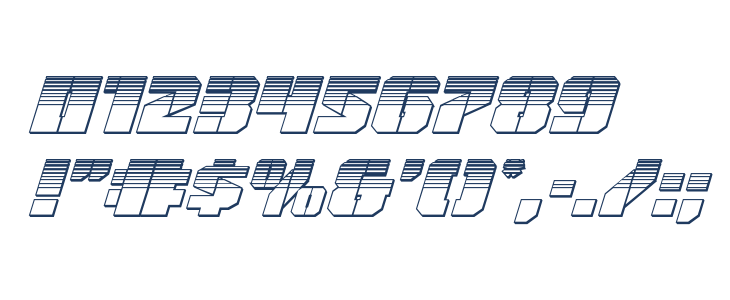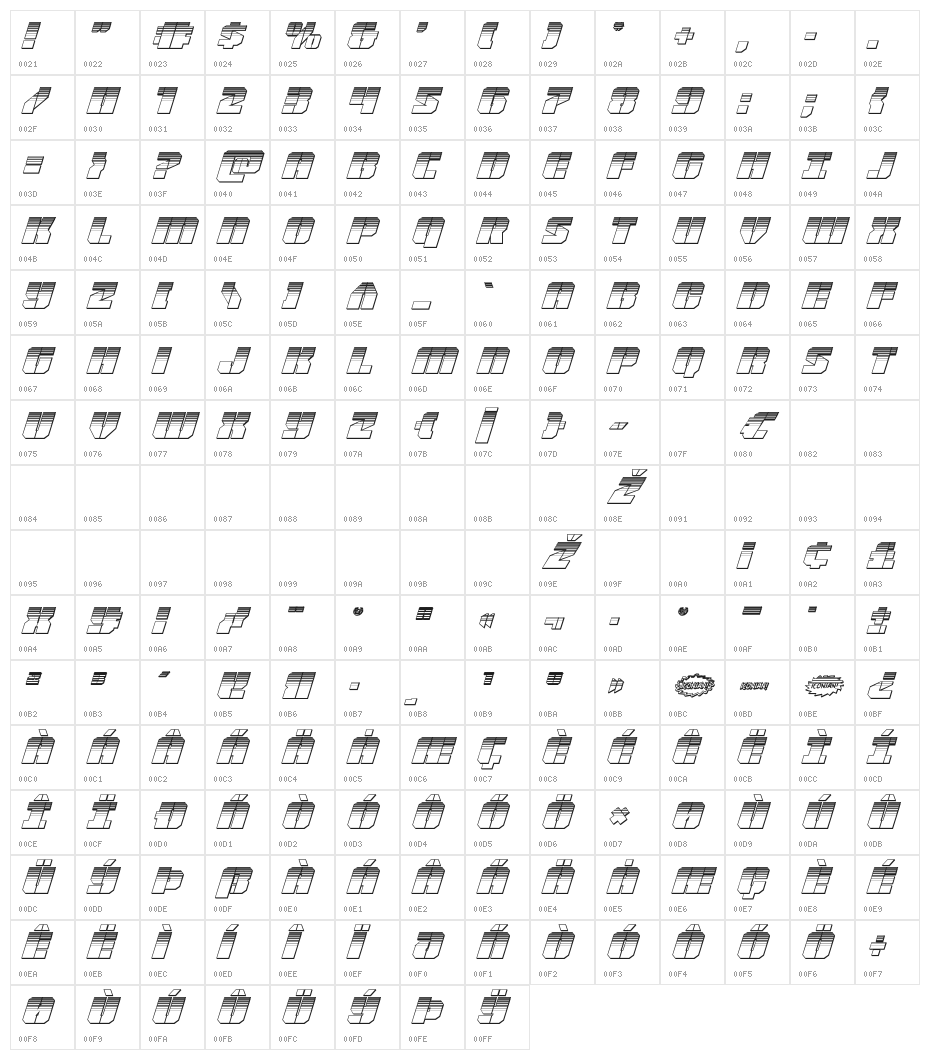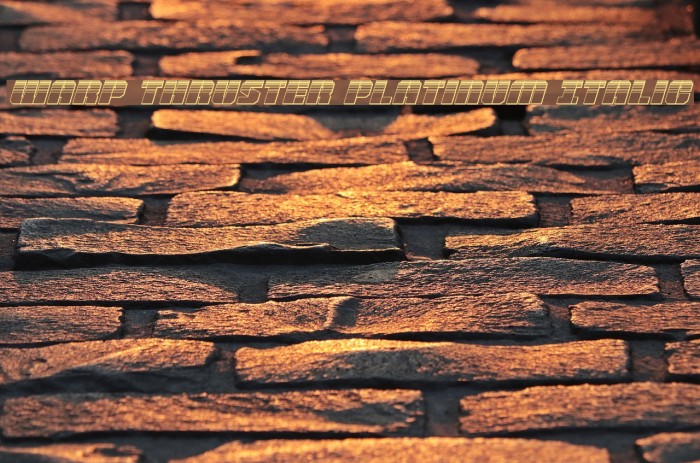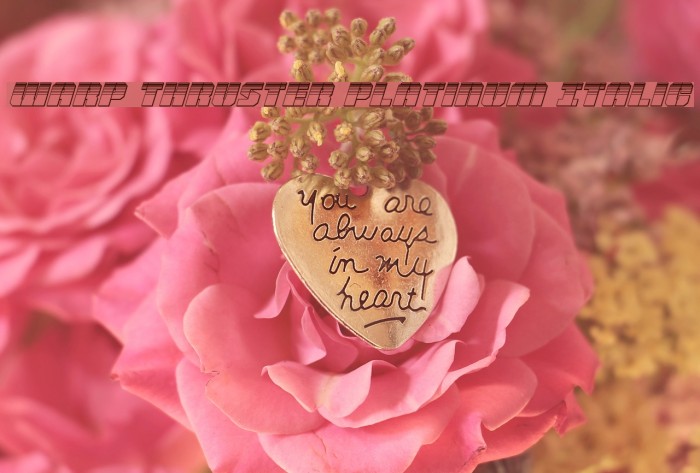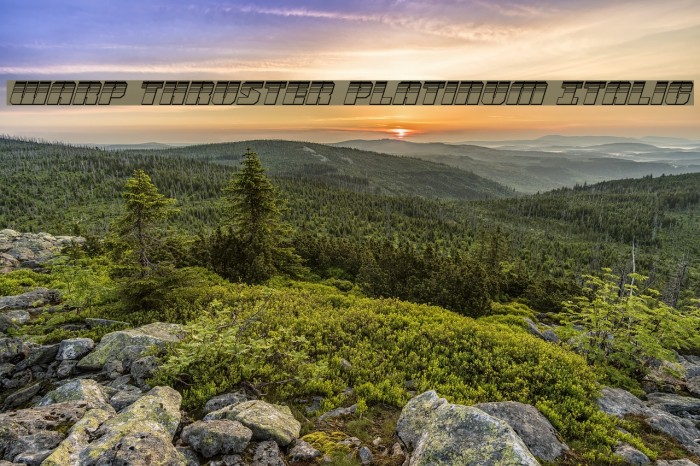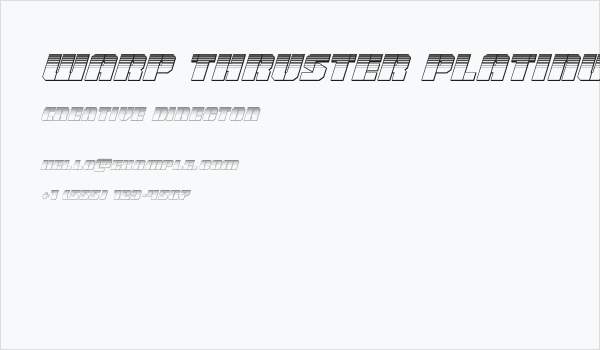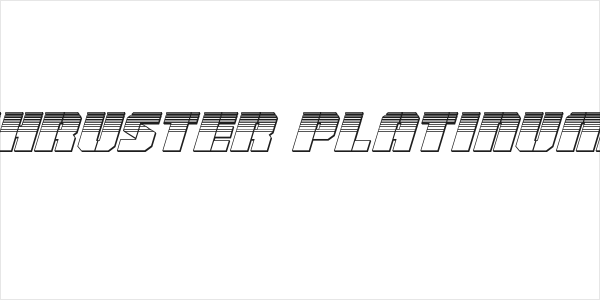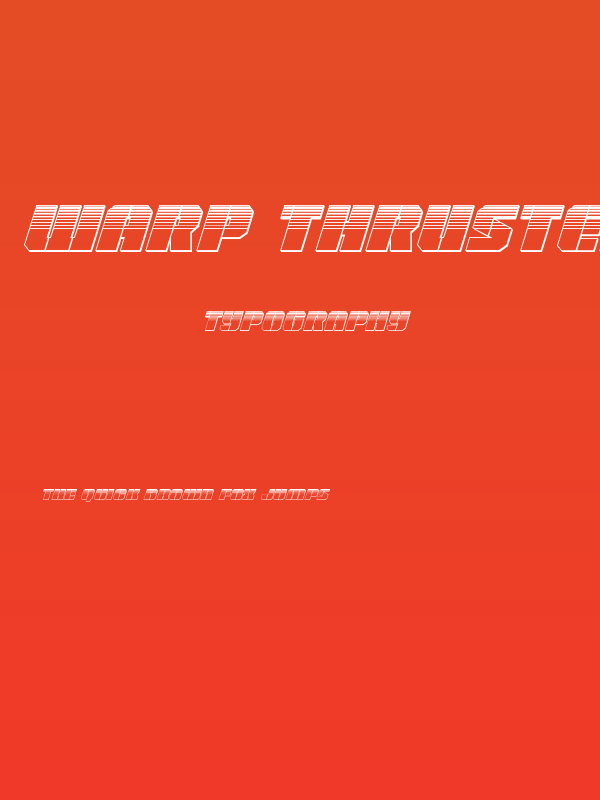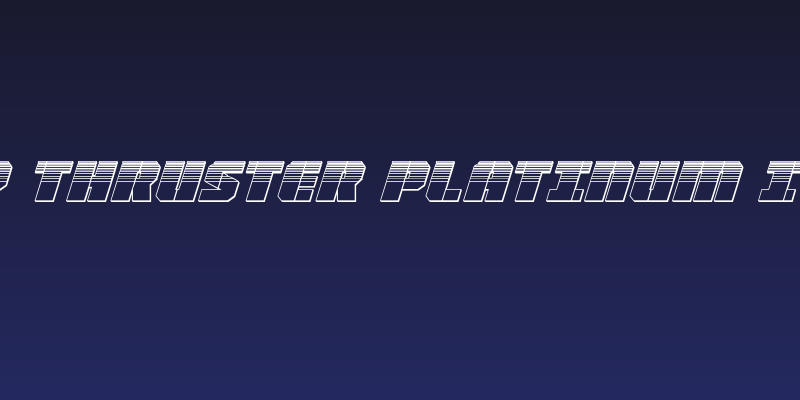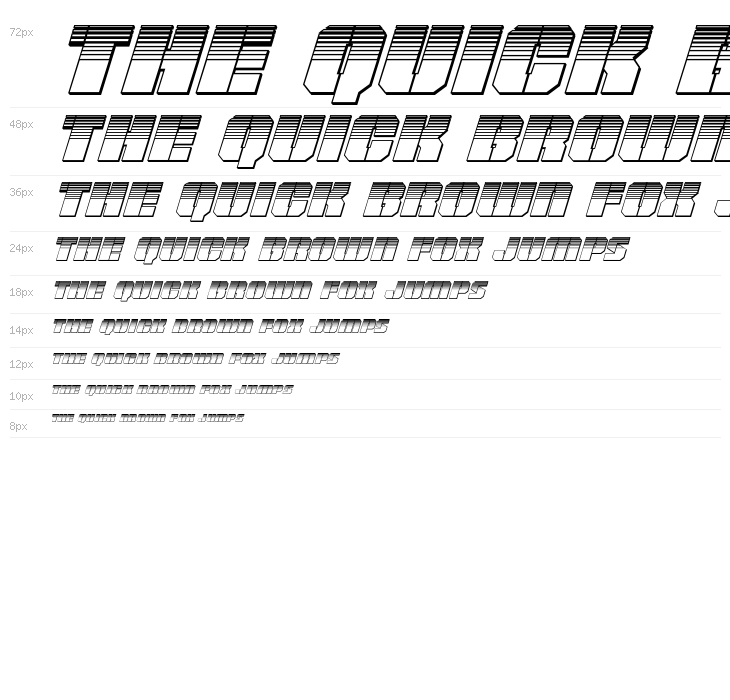
Warp Thruster Platinum Italic Font
Warp Thruster Platinum Italic Description
This font features a futuristic and dynamic design, characterized by its bold, italicized letterforms with a three-dimensional effect. The letters are constructed with parallel lines that create a sense of movement and depth, making it ideal for projects that require a modern and energetic aesthetic. The uppercase and lowercase letters maintain a consistent style, with angular edges and a slanted orientation that enhances the italic appearance. Numbers and special characters follow the same design principles, ensuring uniformity across all elements. The font's unique style makes it stand out, suitable for creative and innovative applications.
Overall StyleFuturistic
Proposed ProjectsIdeal for sci-fi themed posters, video game graphics, technology branding, and futuristic event invitations.